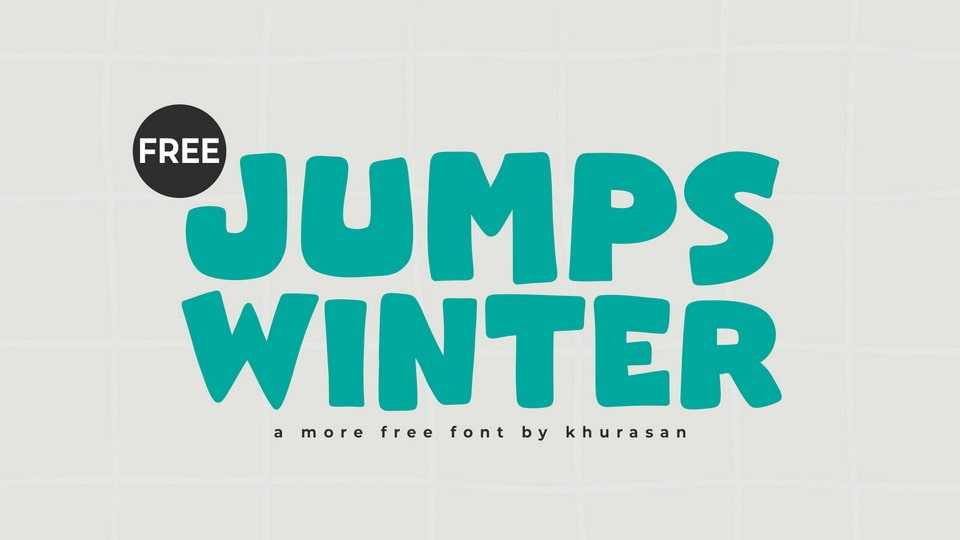
Download Jumps Winter font, a friendly, cozy display typeface with big, soft shapes that feel like a warm hug. Its playful, slightly irregular lettering gives designs a handcrafted, cheerful personality.